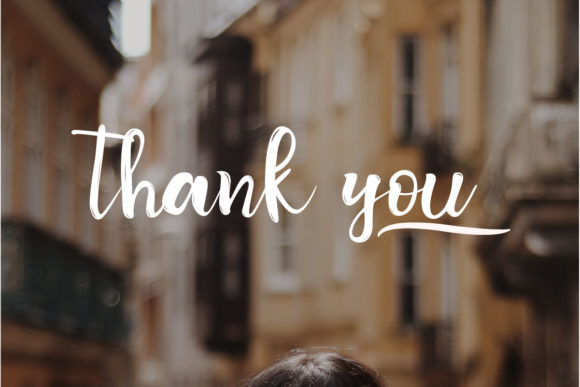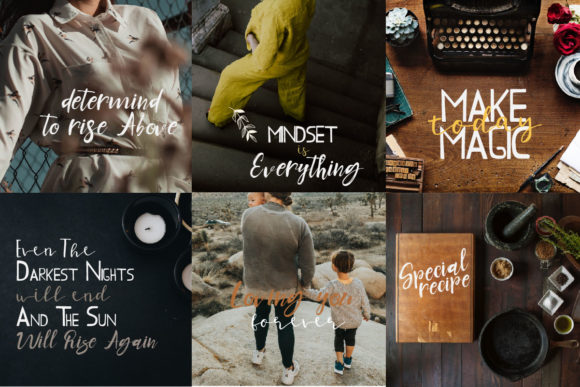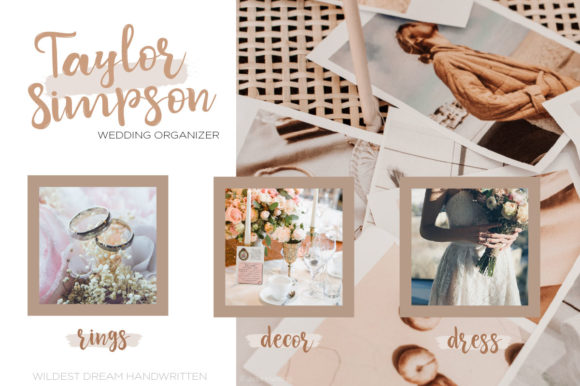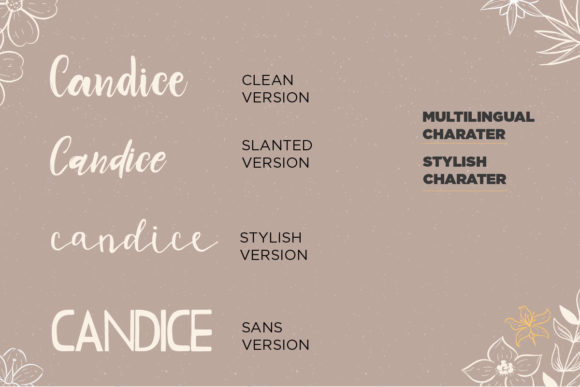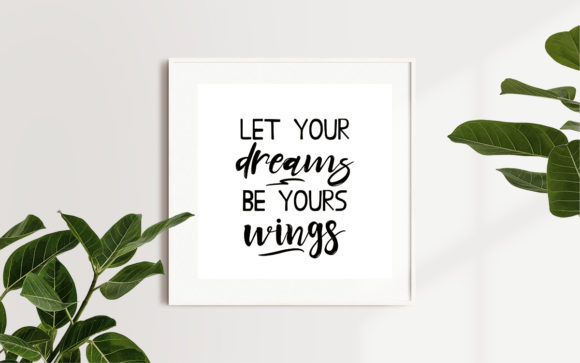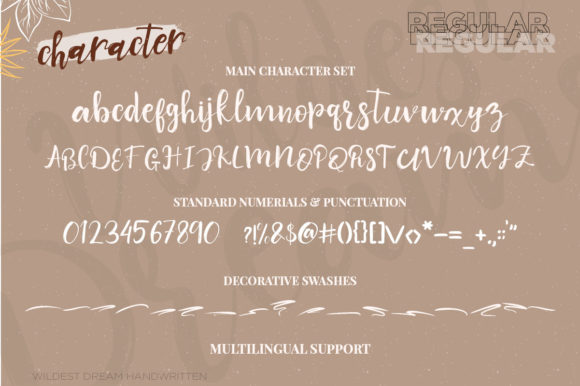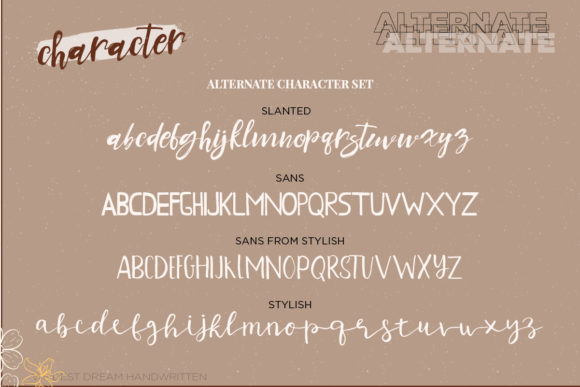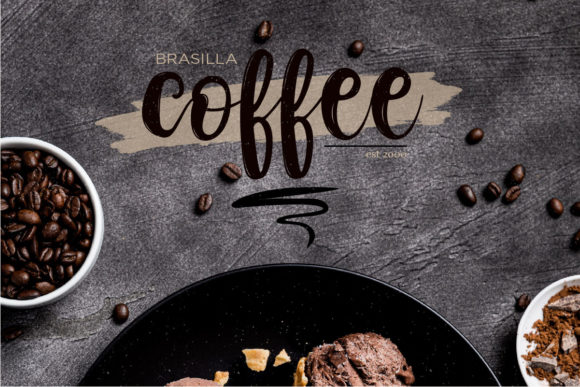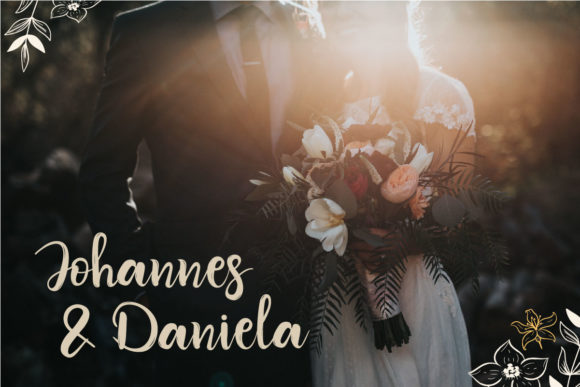
Candice Trio Font
About Candice Trio Font
Candice is a gorgeously light and charming script trio with a unique feel. Fall in love with its stunning style and turn any design idea into a true standout!